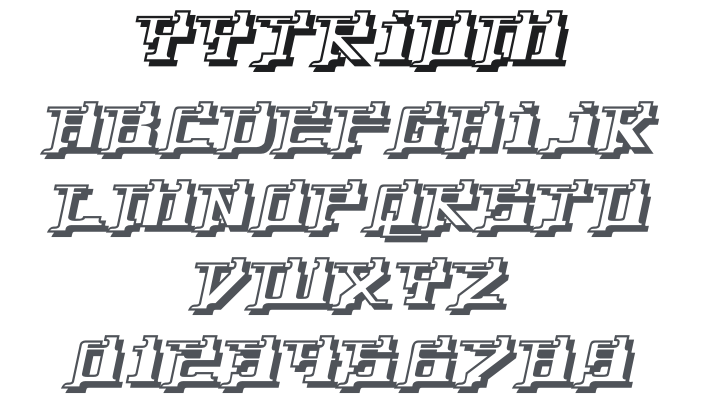
Yytrium Font Family
About Yytrium
Yytrium is a bold, heavily slanted all-caps display typeface inspired by late 1990s Toronto graffiti — sharp, aggressive letterforms with a built-in drop shadow effect that creates an immediate 3D extrusion. Three layerable files allow customizable colour combinations for the shadow depth. The fierce italic stance gives every headline unstoppable forward momentum. Perfect for streetwear branding, hip-hop graphics, urban posters, skate culture designs, and any headline needing raw, graffiti-powered attitude.